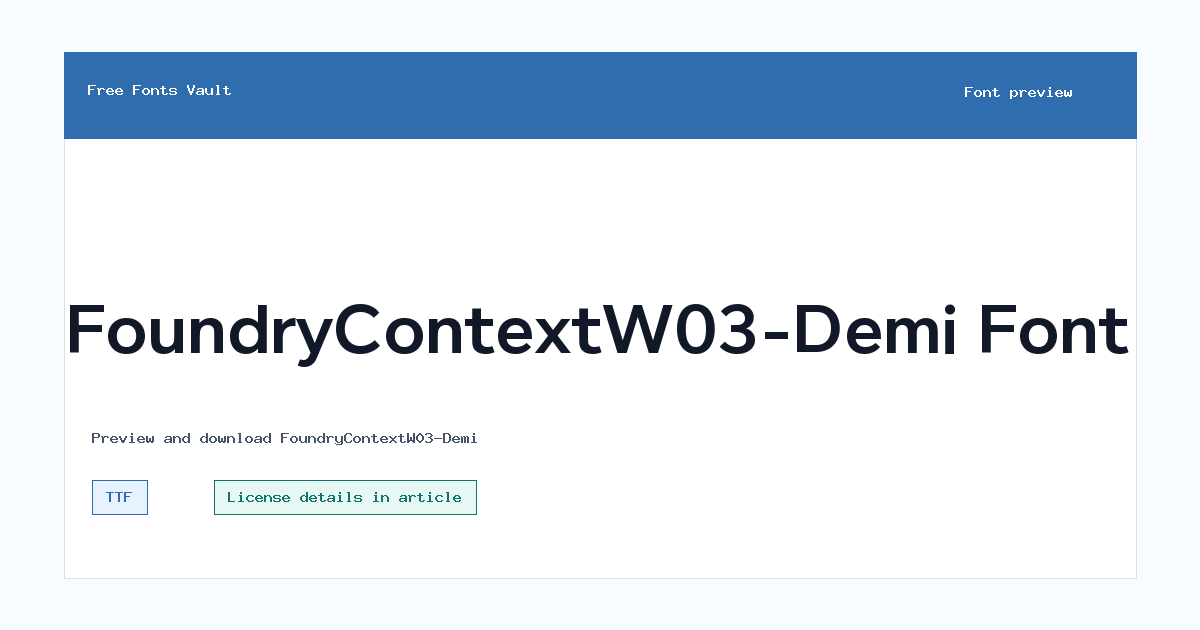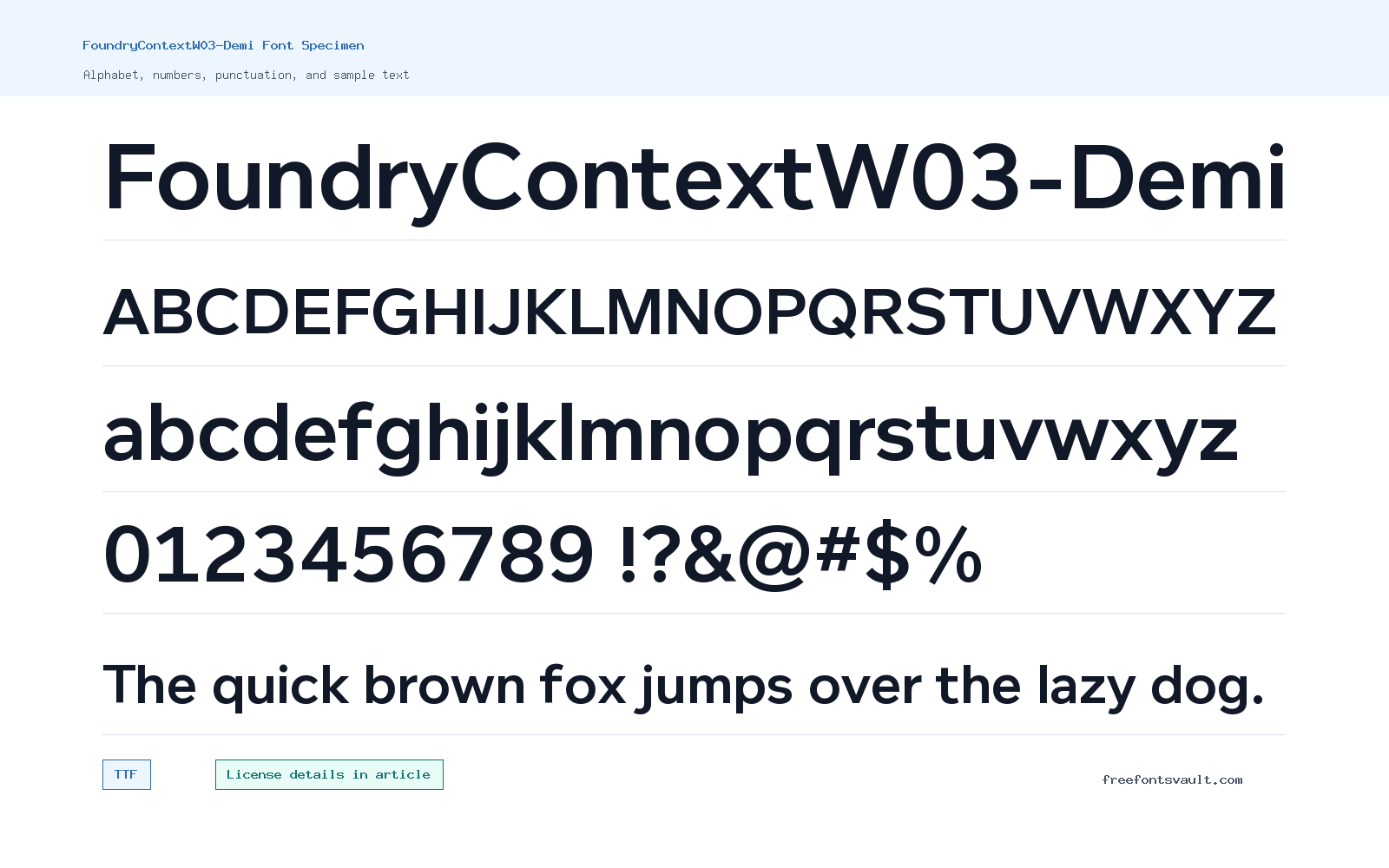
FoundryContextW03-Demi
- Designer David Quay and Freda Sack
- Foundry The Foundry, London
FoundryContextW03-Demi font.
FoundryContextW03-Demi is a TrueType font connected to the Foundry Context name, with David Quay and Freda Sack listed as designers. It is useful for testing a demi-weight text or display voice before deciding how it fits a layout.
About FoundryContextW03-Demi
Use the preview to compare short headings, menu labels, numerals, punctuation, and a few lines of reading text. If the font keeps its rhythm at paragraph size, it may work for more than titles. If it feels too firm or tight, reserve it for headings, cards, callouts, and editorial display moments.
- Demi-weight family name with regular style metadata.
- Credited to David Quay and Freda Sack.
- Useful for testing headings, labels, and controlled reading text.
- Headings, labels, and editorial title treatments.
- Short text blocks where regular weight feels too light.
- Navigation, cards, and interface mockups after readability testing.
- Print or screen layouts where a steady demi tone is needed.
- Typography comparisons before choosing a final licensed family.
Preview real headings and a few reading-size lines. Pay attention to spacing, numerals, punctuation, and how the demi weight behaves on both light and dark backgrounds.
What is a demi font useful for?
A demi weight often works for headings, labels, and short text that needs more presence than regular without becoming fully bold.
What should I preview first?
Preview headings, numbers, punctuation, and a few lines at reading size to decide whether it fits display text, body text, or both.